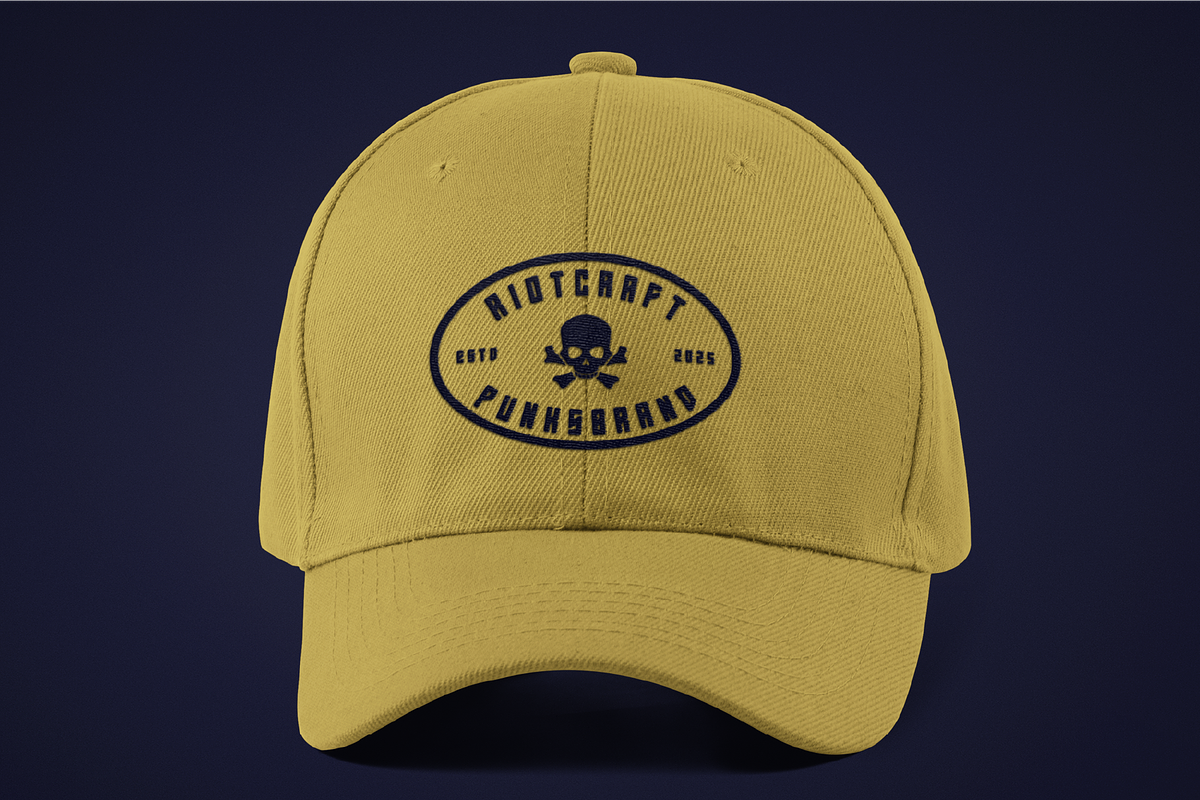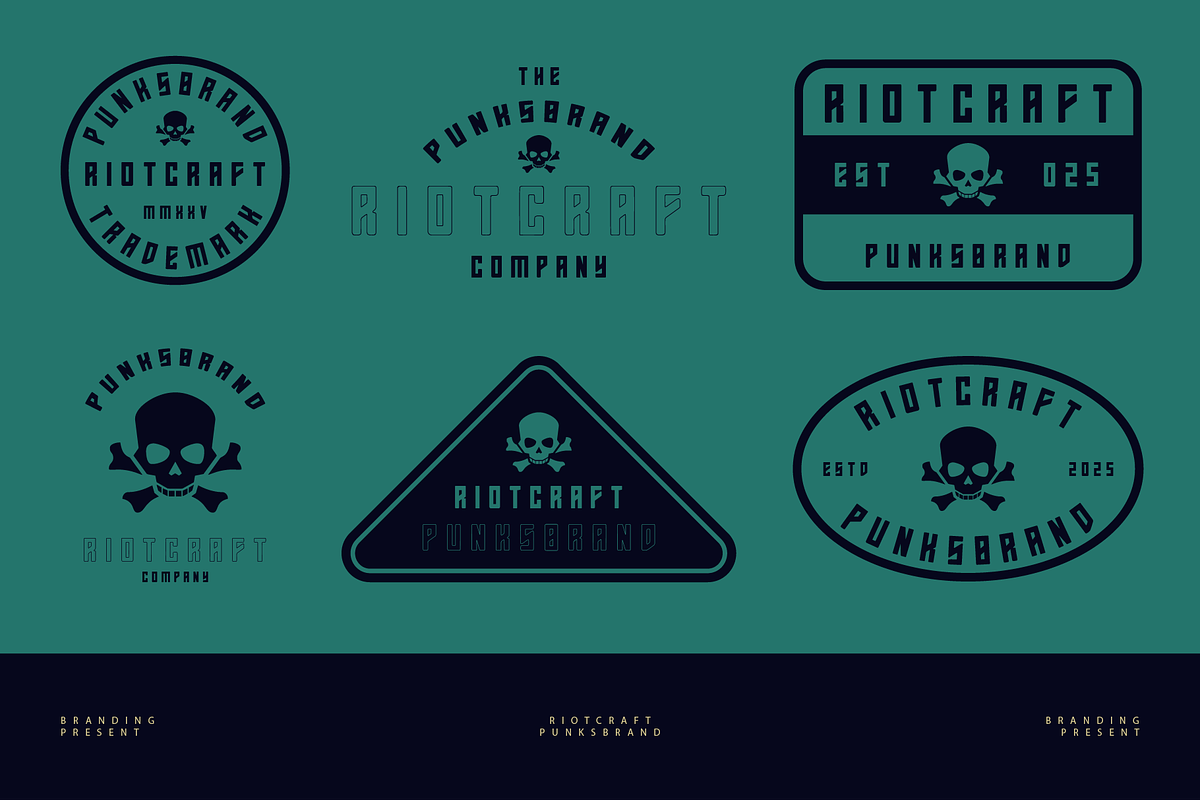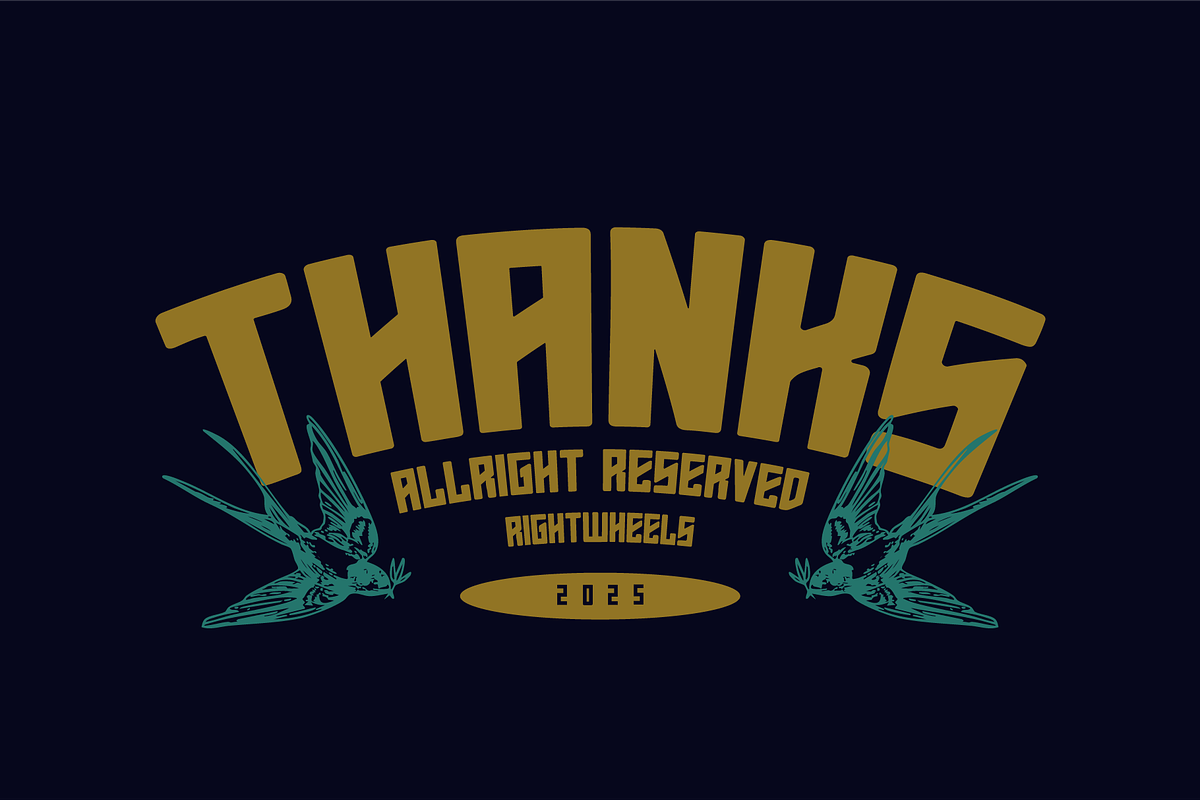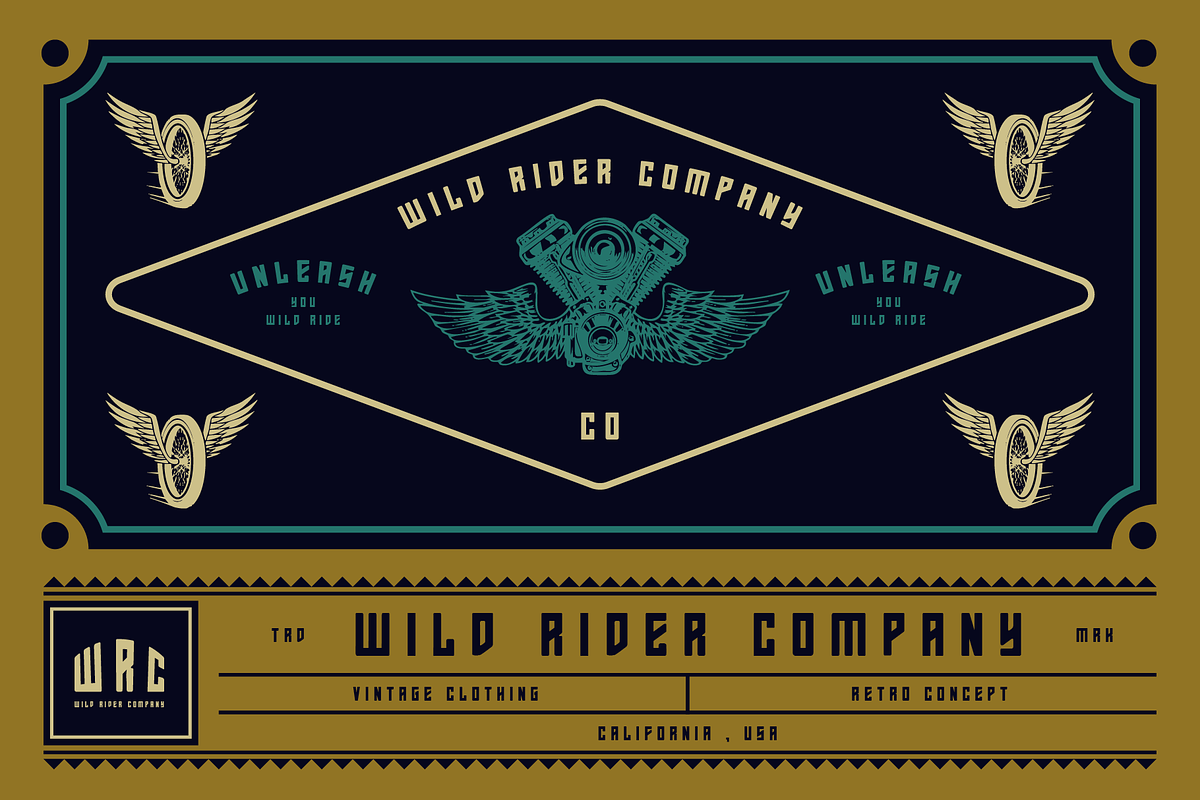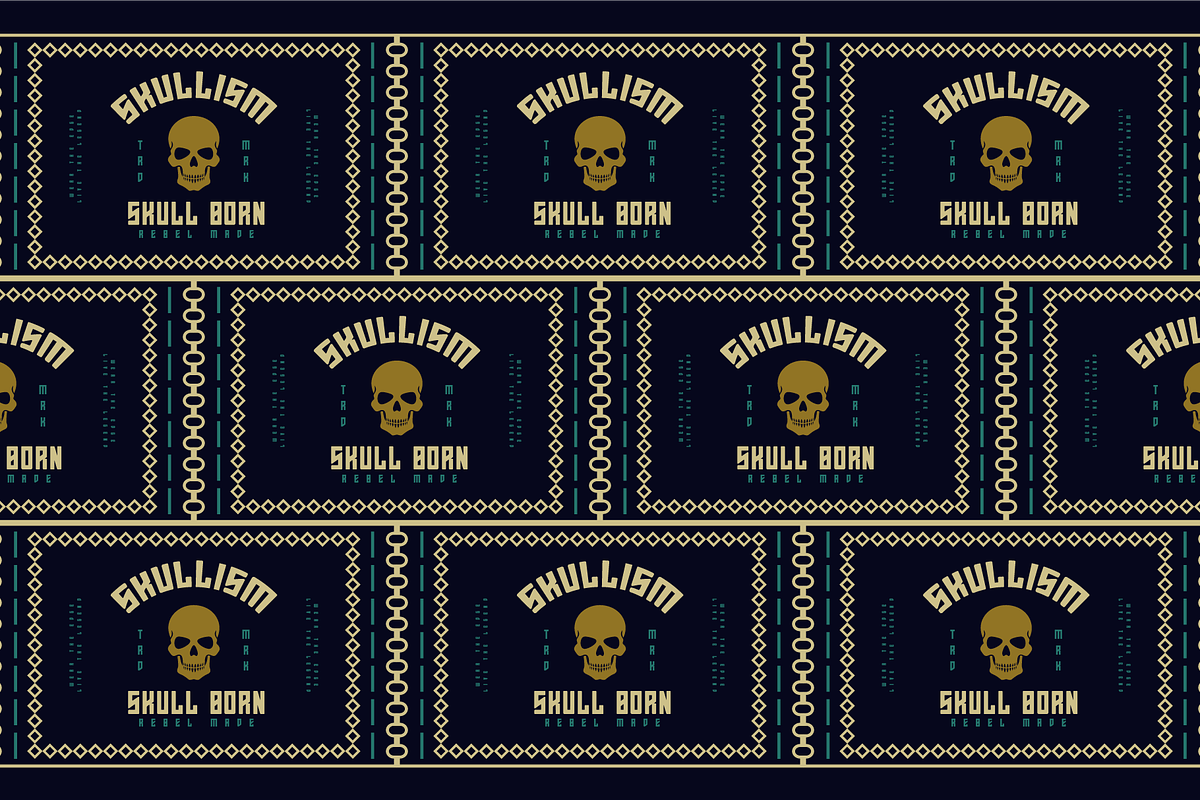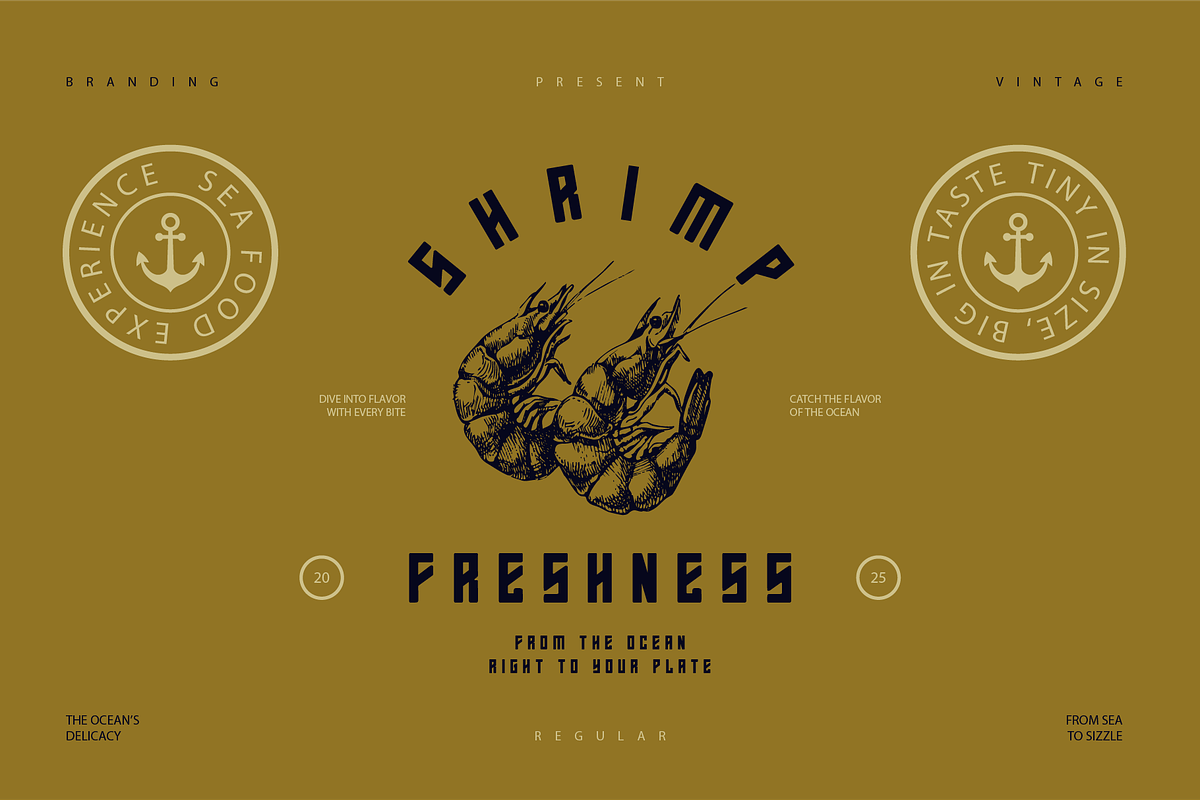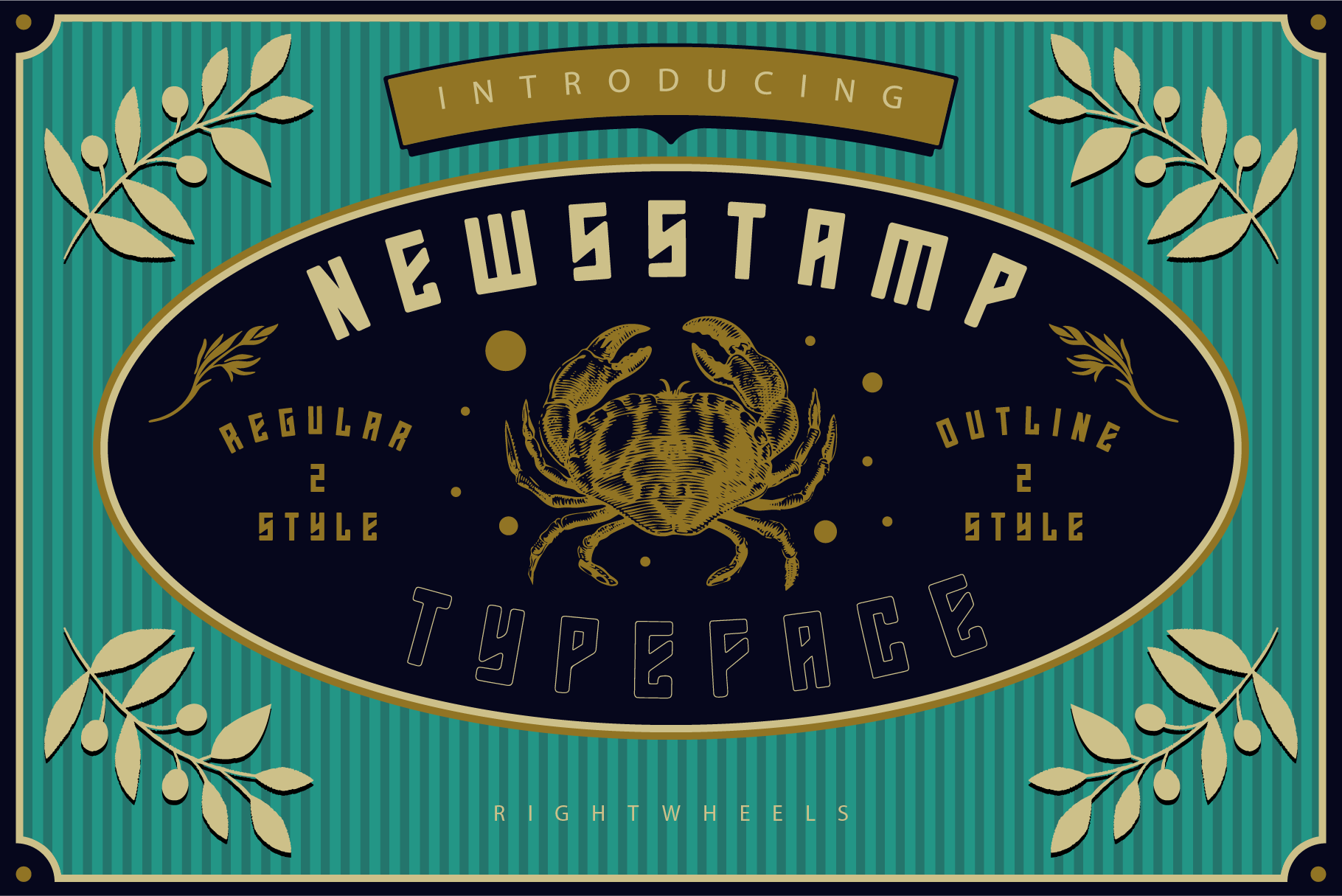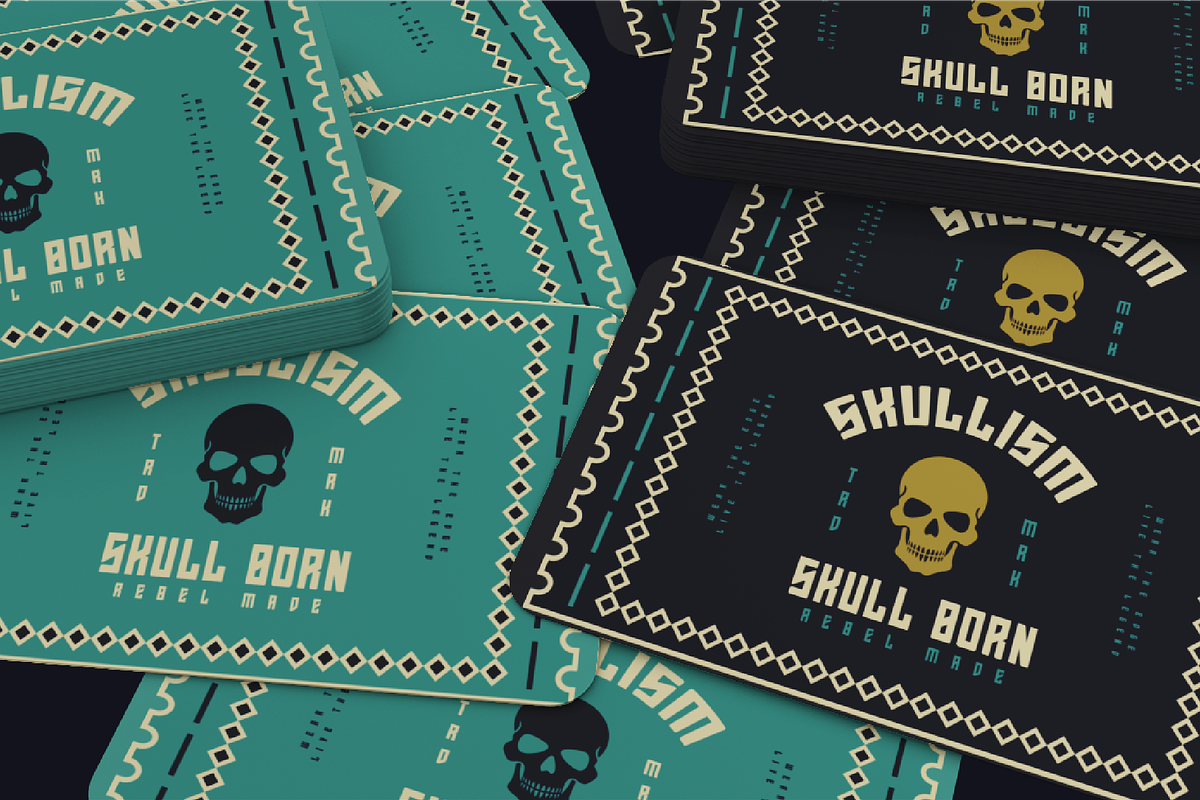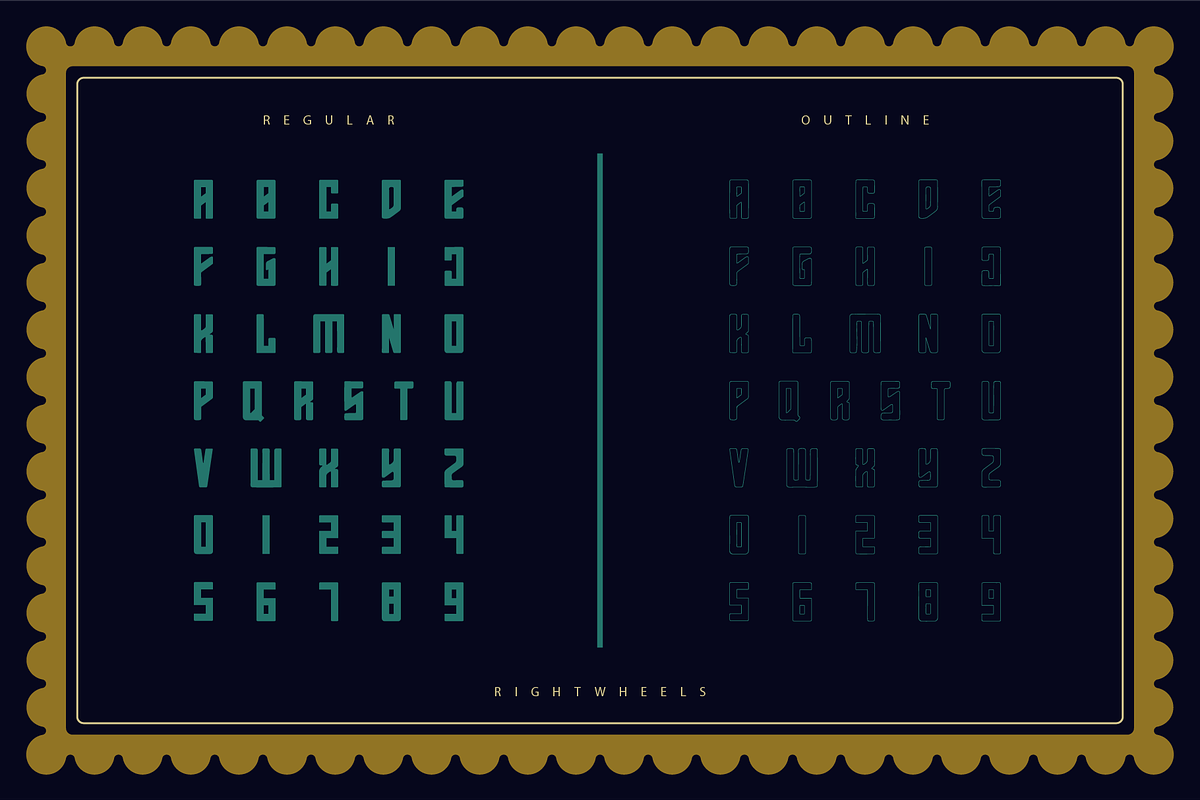
NEWSSTAMP - Retro Display Font
Newstamp is a vintage-style font that exudes a classic, old-fashioned charm. Drawing inspiration from the design of antique stamps and letterpress printing, it features a bold, serif structure with a slightly distressed or weathered finish. The letters are typically thick, with sharp, angular edges and subtle flourishes that give them an authoritative yet elegant feel. Its design often includes irregularities and imperfections that mimic the hand-crafted look of early printed materials.